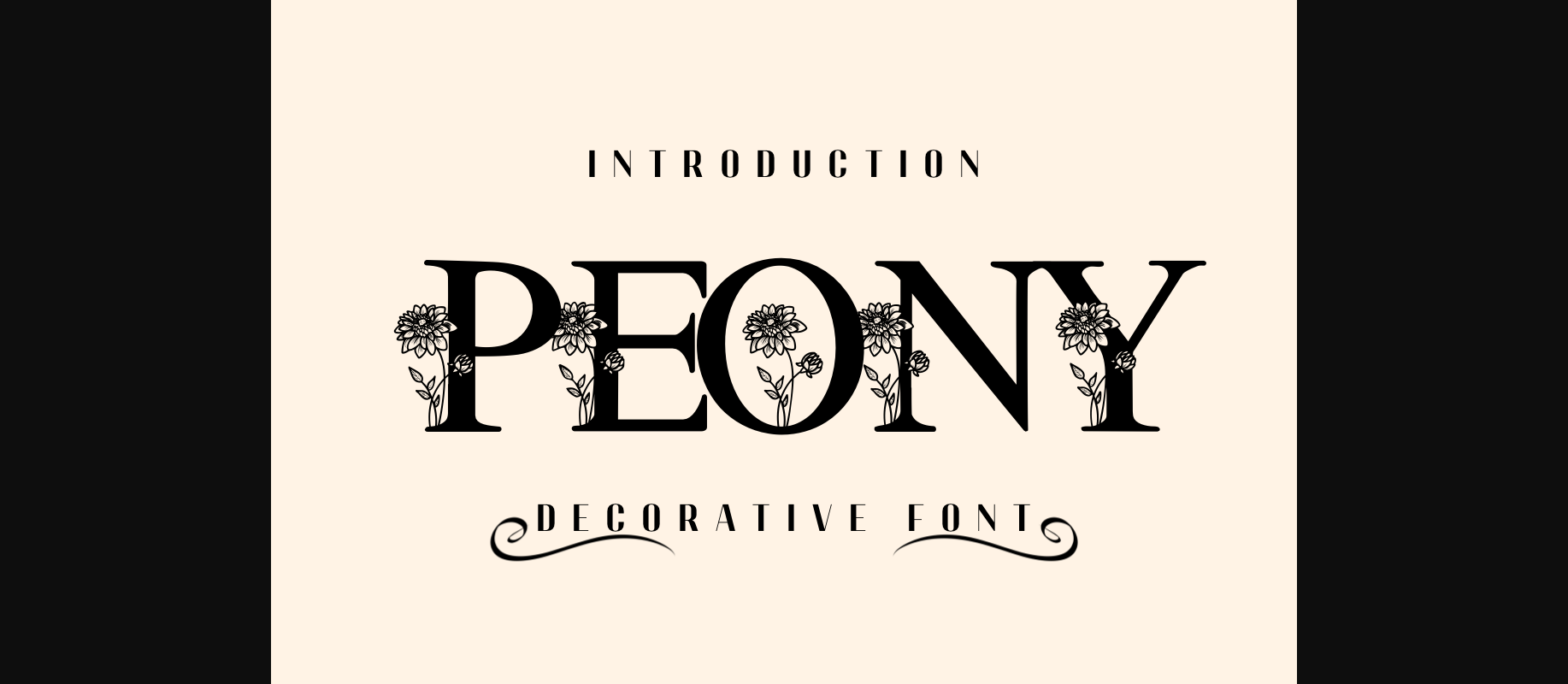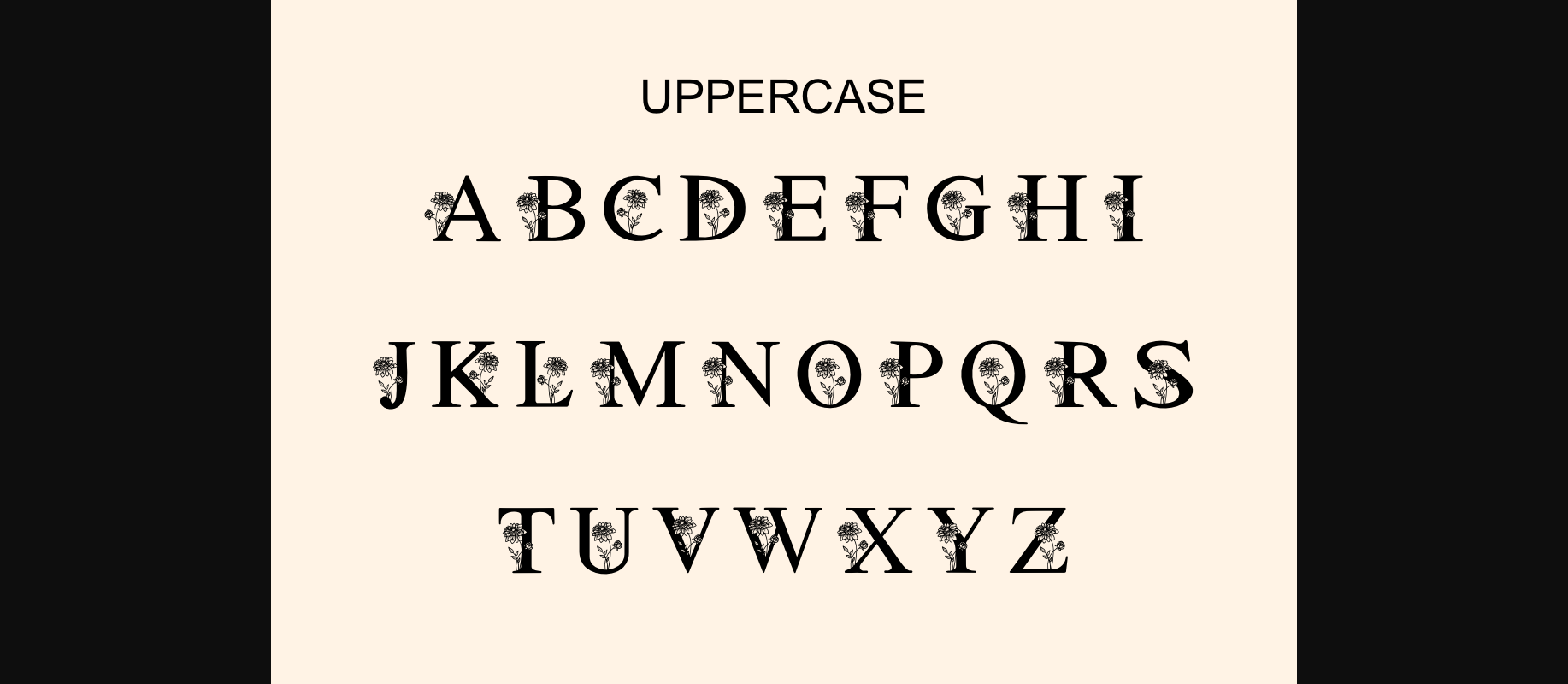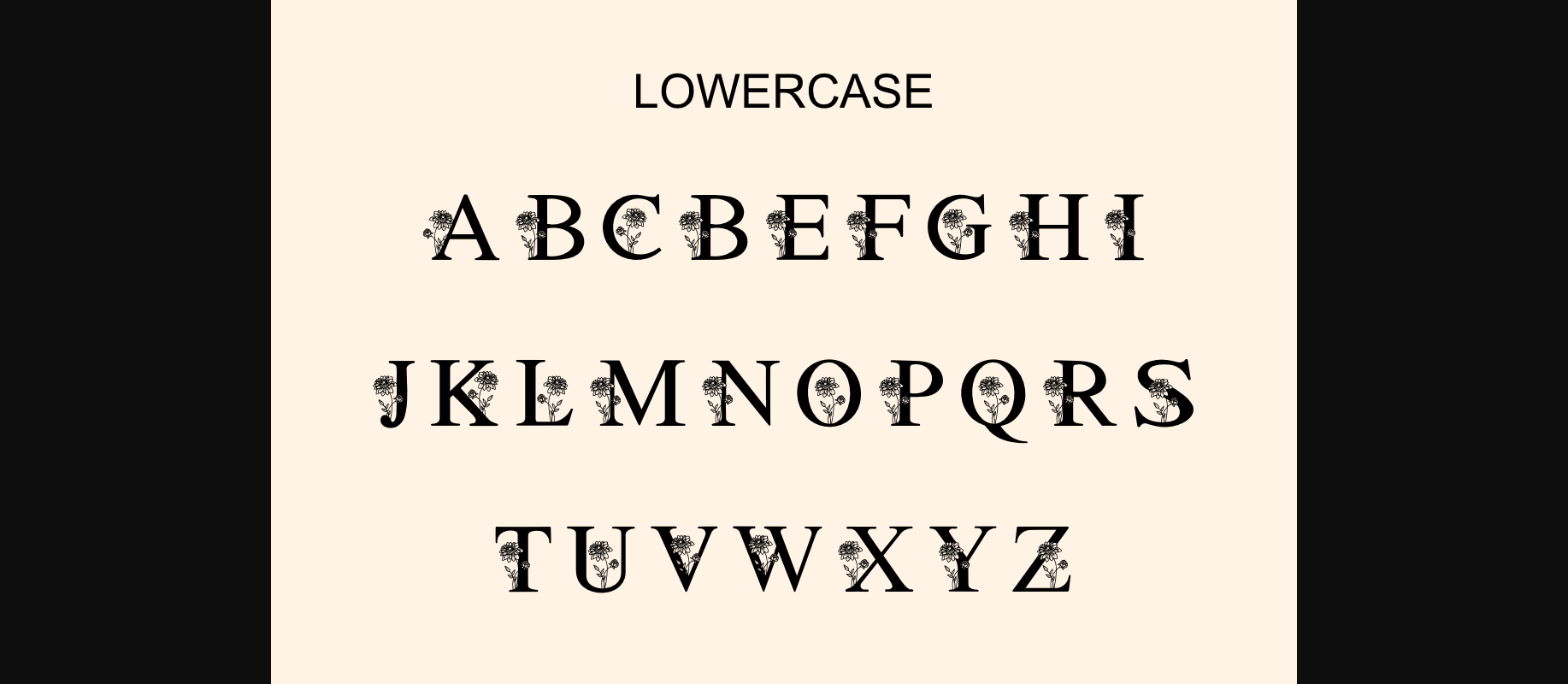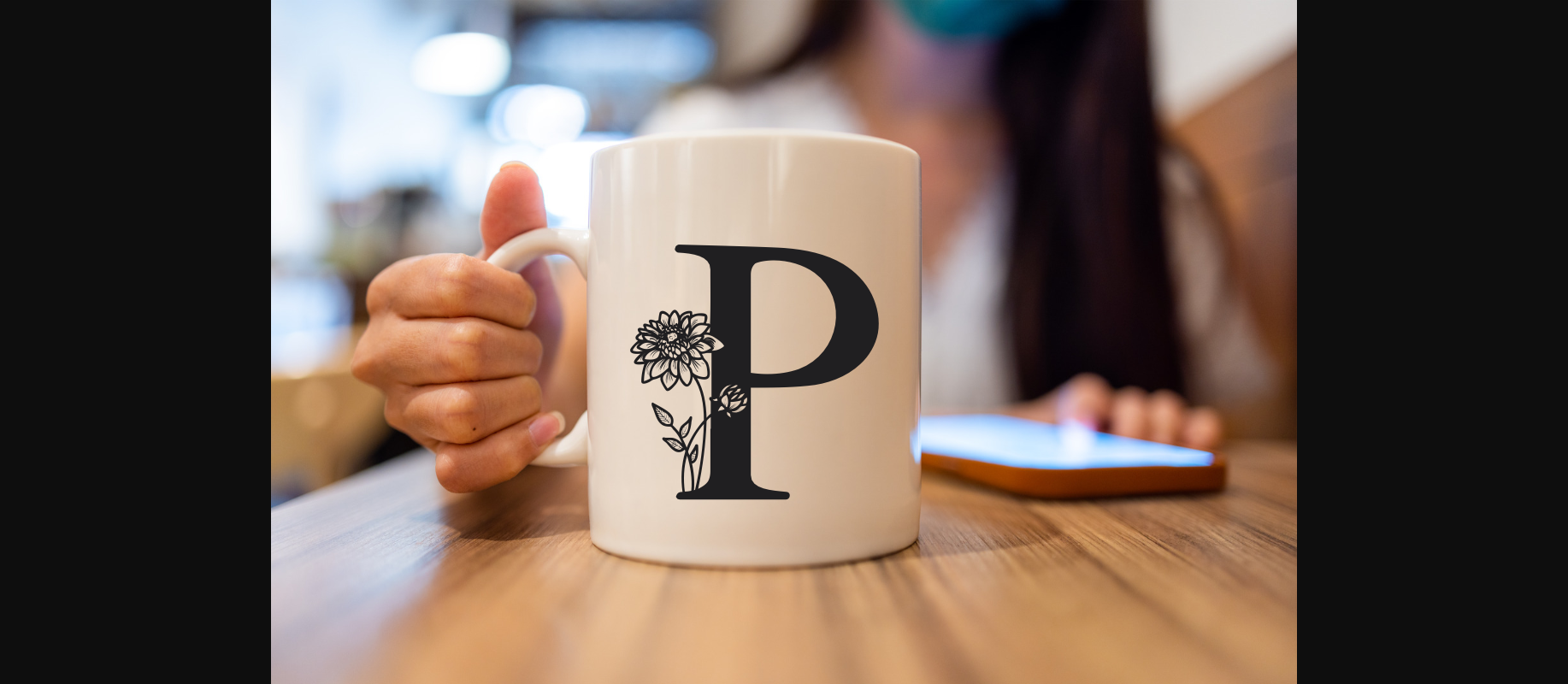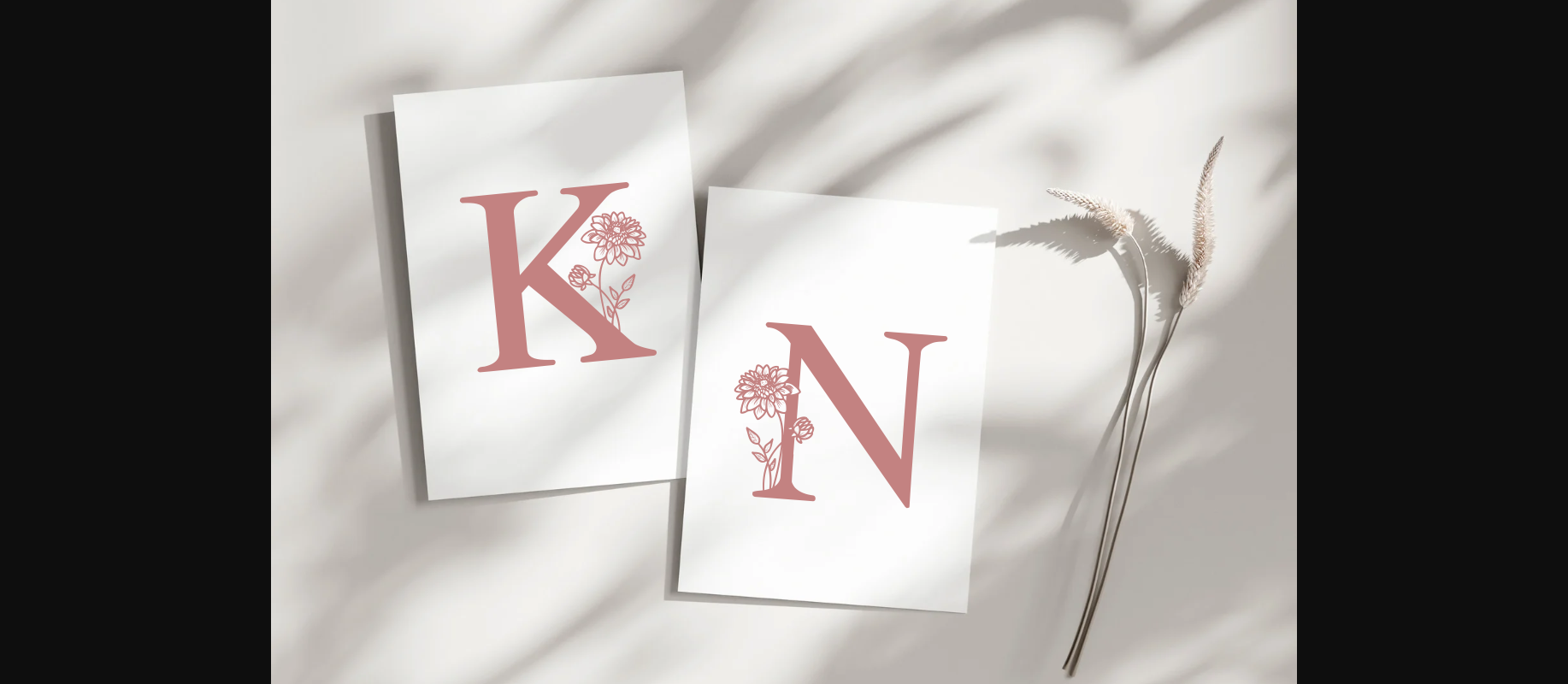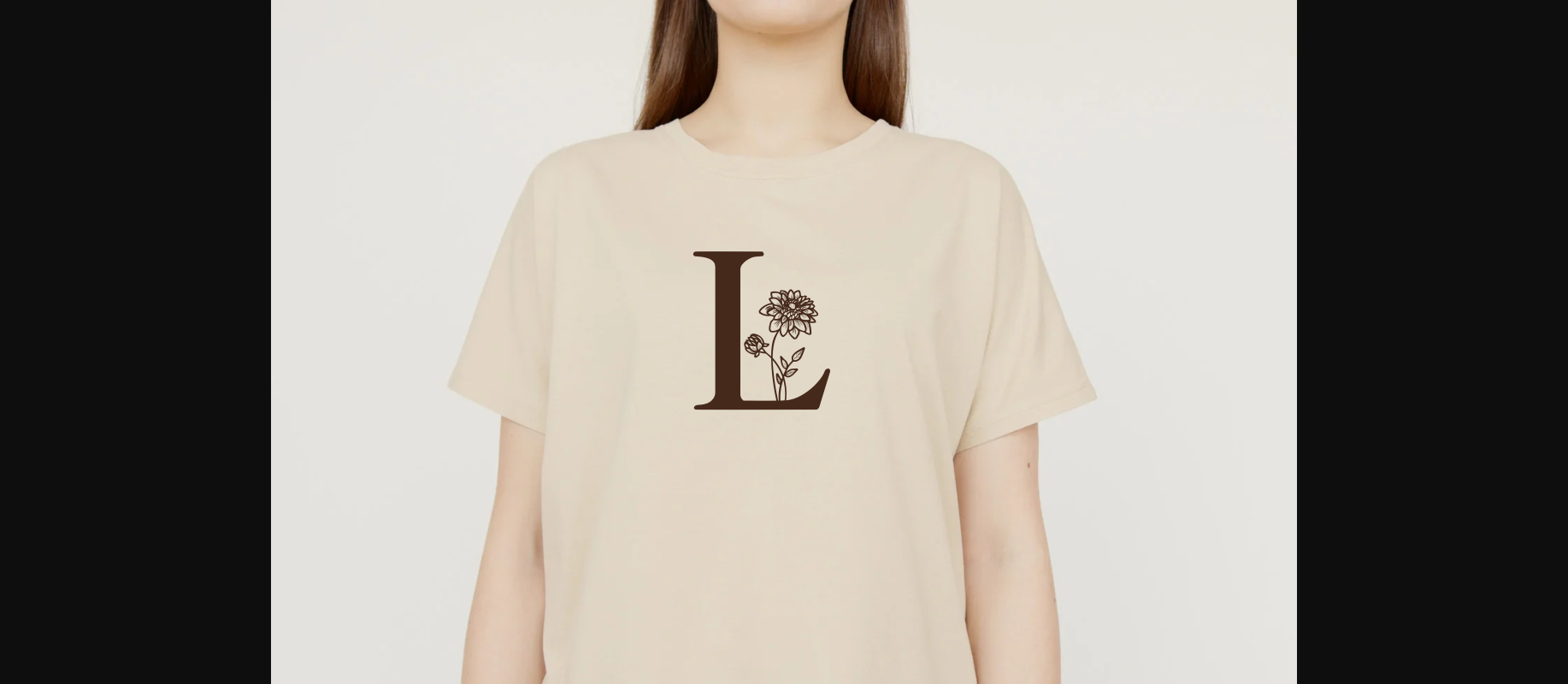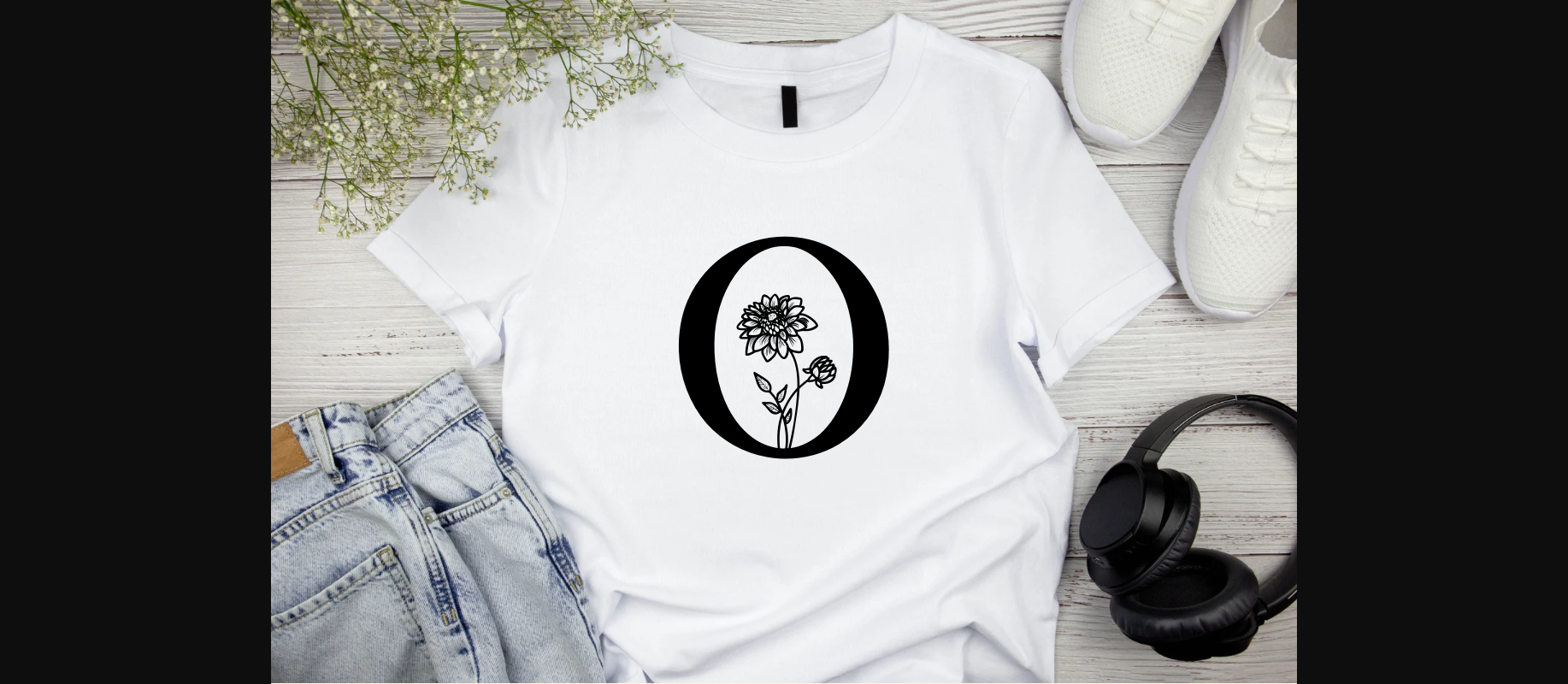
Peony Font
About Peony Font
Peony is a decorative font with floral elements. You can use it for taking notes, writing a diary, or making greeting cards. However, you can still use it for other designs, such as banners, content, mugs, cards, shirts, stationery, social media posts, and more!